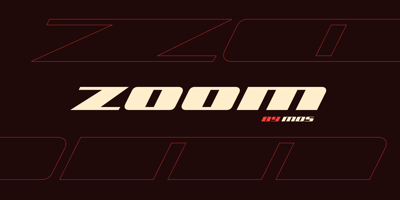
Zoom
Zoom font
Zoom Font Family was designed by Matt D. Smith and published by MDS. Zoom contains 10 styles and family package options. This font is fast. Carving apexes, drafting competitors, and breaking away for the finish line. This is a sleek and extended font family designed for top speed while squeezing into tight places. Zoom is intended for display and would be right at home, nested gently on a carbon fiber bike frame, forged as the nameplate on the back of a vehicle, or printed stoutly on any number of sporting products.